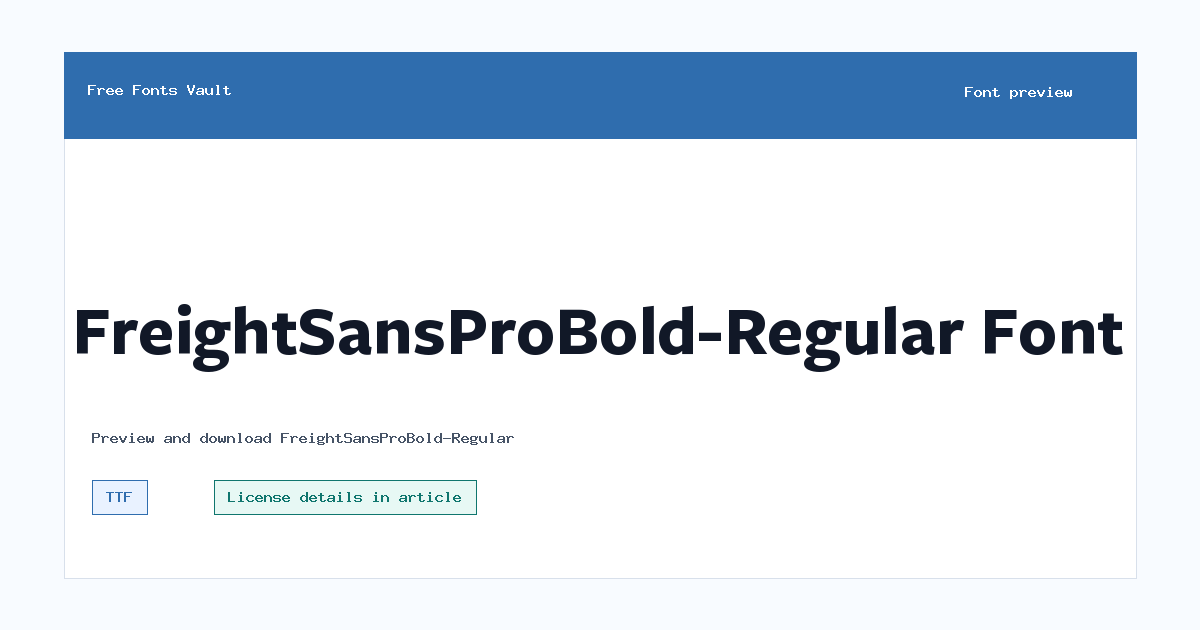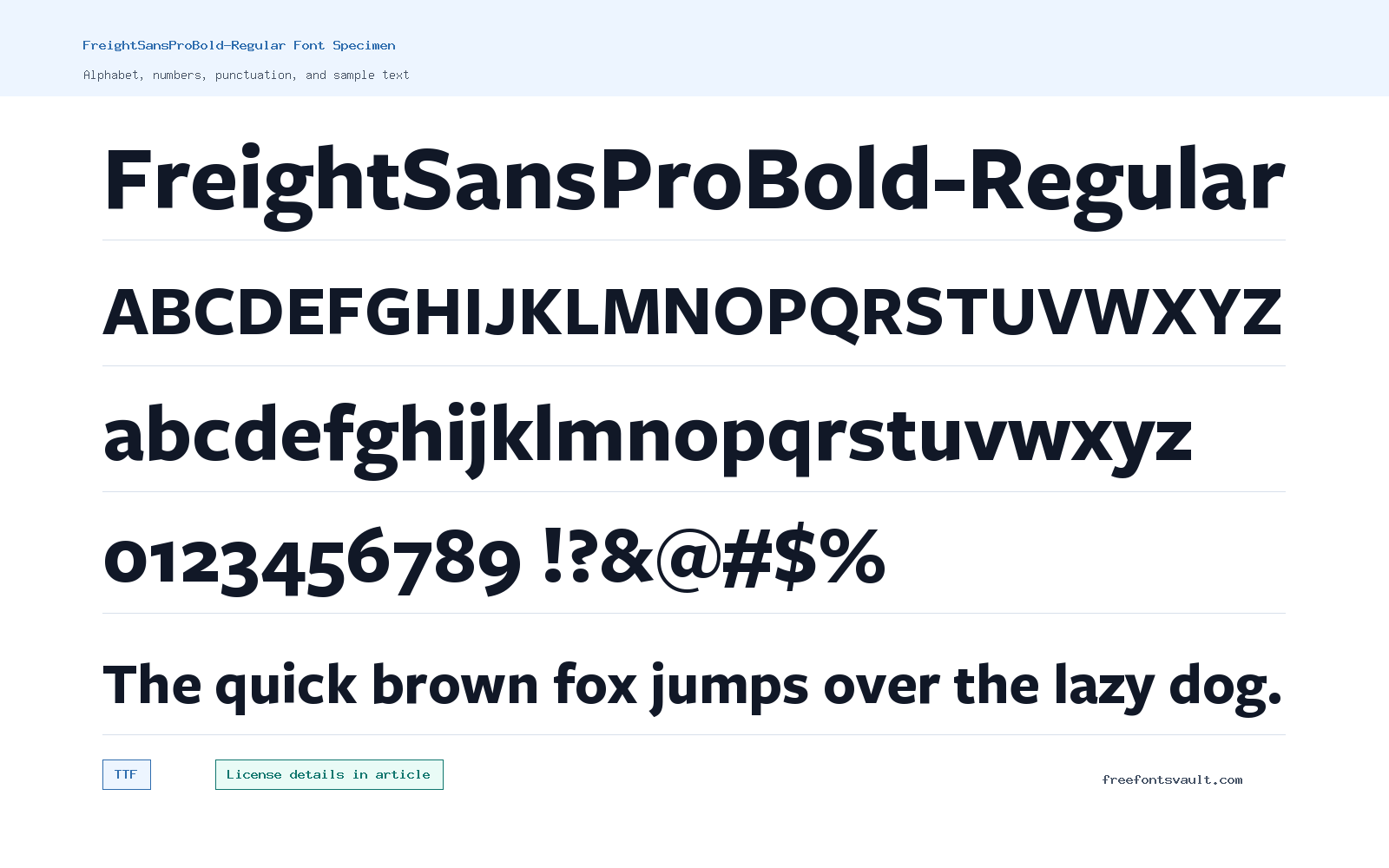
FreightSansProBold-Regular
• Designer Joshua Darden
• Foundry Joshua Darden & Phil's Fonts, Inc
FreightSansProBold-Regular is a bold sans serif font file for visitors who need strong, clean lettering in short text. Use the preview tool to test your own words before downloading, especially for headings, labels, and display-size text.
FreightSansProBold-Regular is listed as a TTF font with normal style and a 700 weight, so it is best treated as a bold upright cut rather than a full font family. Its name points to a sans serif design, and the bold weight makes it better suited to emphasis than long paragraphs. Try it in the preview with uppercase, lowercase, numbers, and punctuation so you can see whether the spacing and weight match your project.
This font is most useful when you need a clear headline, navigation label, poster line, button, or short brand-style phrase. Because only one bold TTF variant is noted here, plan to pair it with a regular-weight text font for body copy. If you use it in a layout, test it at several sizes: bold fonts can look sharp in large display settings but may feel heavy in dense paragraphs or small UI text.
• Bold upright TTF variant with a listed 700 font weight
• Sans serif naming and single-file format make it practical for headline and short-text testing
• Headlines, titles, posters, banners, and short display text
• Buttons, labels, navigation items, and other places where a heavier sans serif style is useful
FreightSansProBold-Regular is credited to designer Joshua Darden, with the foundry listed as Joshua Darden & Phil's Fonts, Inc.
What weight is this font?
The listed weight is 700, which is commonly used for bold text.
Is this a full font family?
What is FreightSansProBold-Regular best used for?
It is best tested for headings, labels, short display text, buttons, and other places where a bold upright sans serif style is useful.